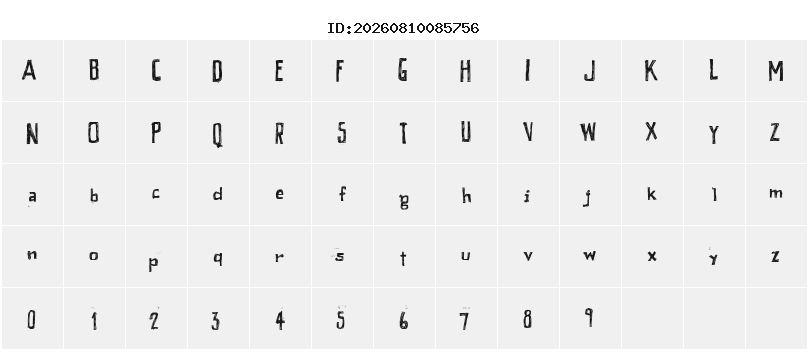
PEIXE FRITO Preview
• Font Name: PEIXE FRITO
• Designer: Billy Argel
About PEIXE FRITO.ttf
PEIXE FRITO.ttf is a modern, elegant sans-serif font designed for ultimate readability and visual harmony. Perfect for branding, headlines, web design, and print materials.